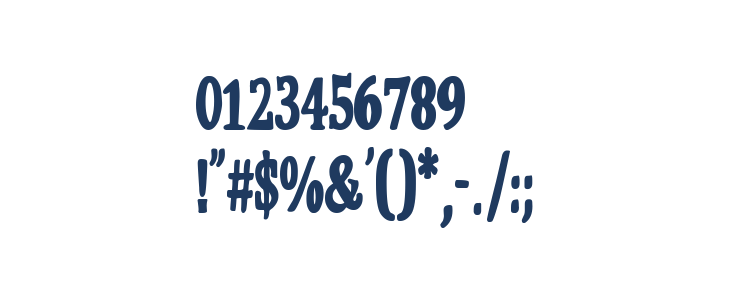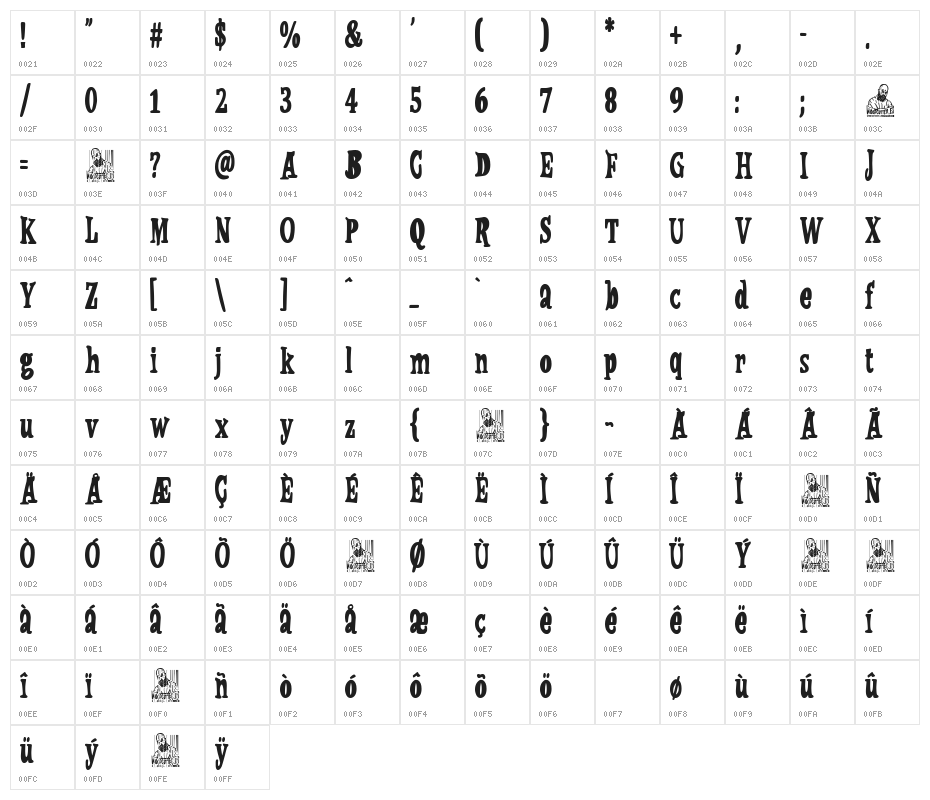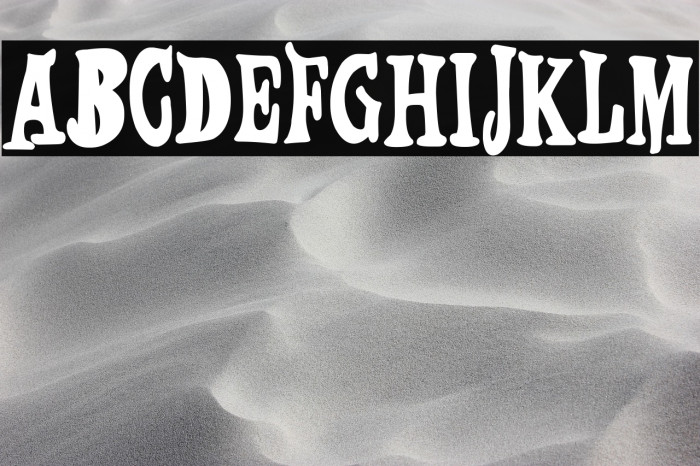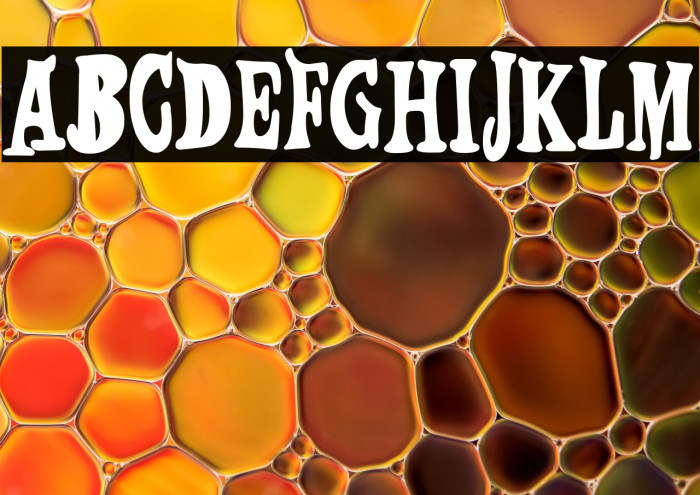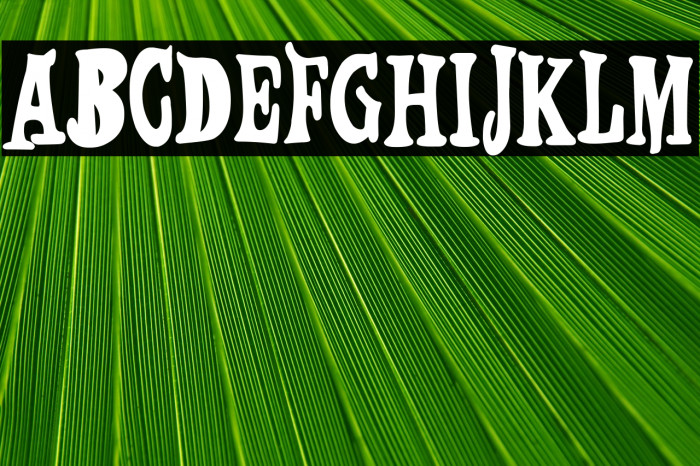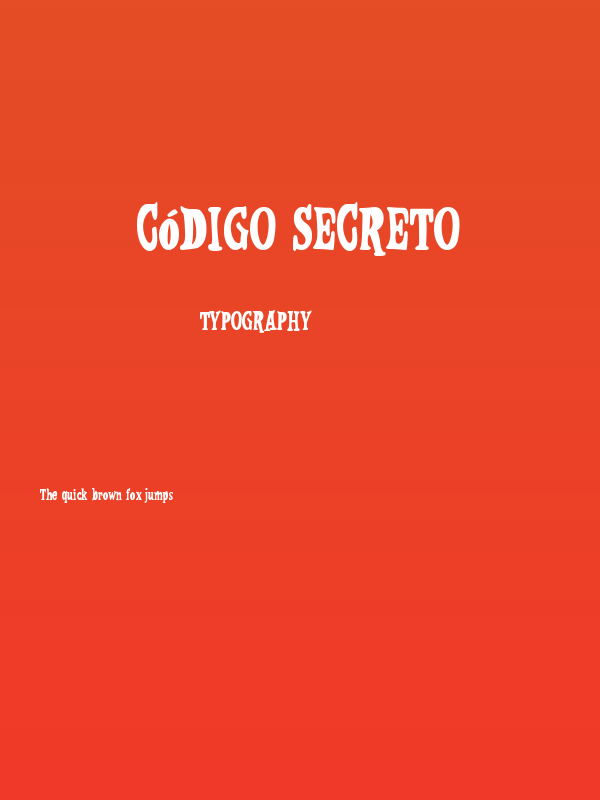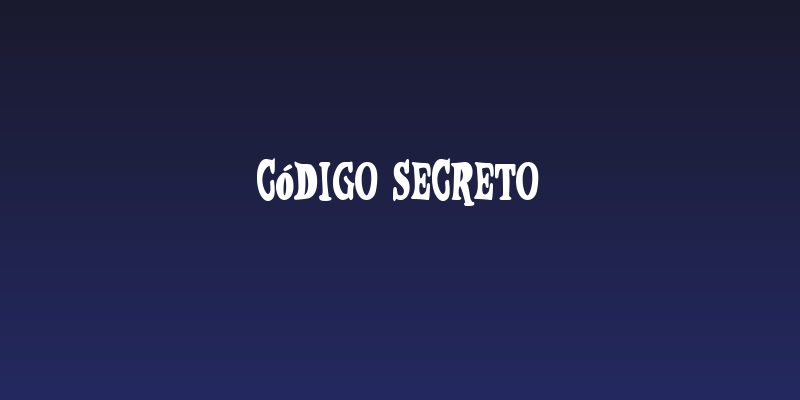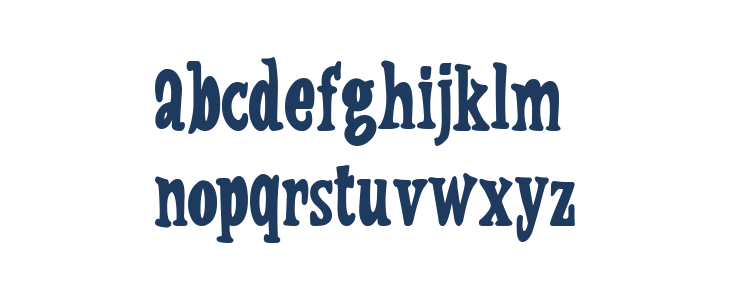
Código Secreto Font
Código Secreto Description
This font features a bold and playful style with a strong presence. The characters are slightly condensed, giving it a compact appearance. The uppercase letters have a whimsical flair, with exaggerated curves and varying stroke widths that add a dynamic feel. The lowercase letters maintain this playful aesthetic, with rounded forms and a consistent flow. Numbers are bold and easily readable, while special characters are designed to match the overall style, ensuring a cohesive look. The font's unique character makes it suitable for projects that require a fun and engaging typeface.
| Overall Style | Playful, Whimsical, Dynamic |
| Proposed Projects | Ideal for children's books, playful branding, posters, and creative invitations. |